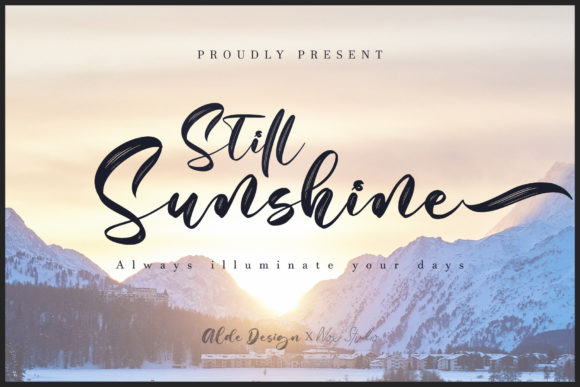
Adorn your digital creations with the radiant charm of Still Sunshine, a captivating script font family that exudes warmth, romance, and joy. Crafted by the talented Nox Studio, this font is a versatile masterpiece that effortlessly transforms your project ideas into stunning works of art.
Still Sunshine's graceful curves and playful strokes evoke a sense of nostalgia and charm. Its meticulous design ensures effortless readability, while its PUA encoding grants you easy access to a treasure trove of glyphs and swashes, empowering you to add a touch of personalization and flair to your designs.
Whether you're a seasoned graphic designer or a creative enthusiast seeking to elevate your digital presence, Still Sunshine is your ultimate companion. Its versatility knows no bounds, making it an ideal choice for an array of projects, from heartfelt handwritten notes and elegant wedding invitations to captivating social media graphics and eye-catching branding materials.
Picture the sheer delight of your audience as they encounter your projects adorned with Still Sunshine's enchanting allure. Its timeless beauty effortlessly captures attention, leaving a lasting impression that lingers in the hearts and minds of your viewers.
Still Sunshine is more than just a font; it's an expression of your creativity, a testament to your passion. Let its radiant glow illuminate your designs and spread joy and inspiration wherever your creations travel. Embrace the magic of Still Sunshine today and unlock a world of endless creative possibilities.